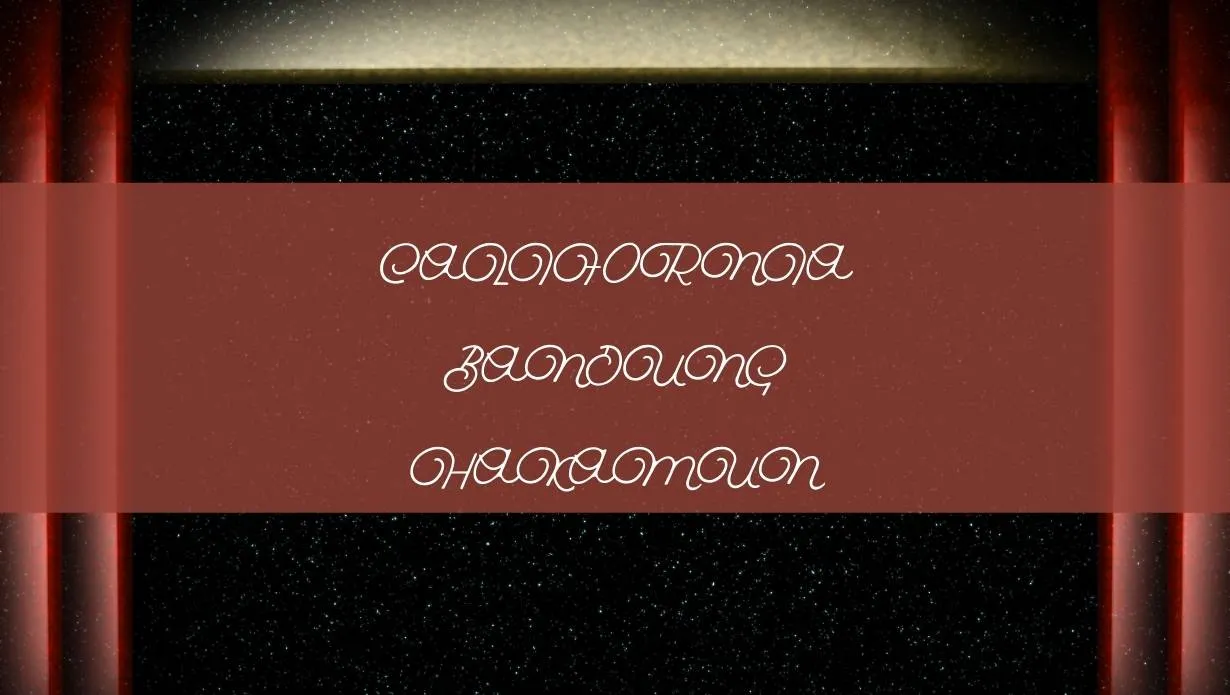
Buffalo Font Free Download
Buffalo Font is a brush script typeface created by Alejandro Paul. It is a casual, handwritten font that has been designed to look natural and informal. This Font is perfect for use in logos, headlines, and other creative designs where a handwritten look is desired.
View of Buffalo Font
Buffalo Font Info
| Name | Buffalo Font |
| Designer | Alejandro Paul |
| Category | Handwritten |